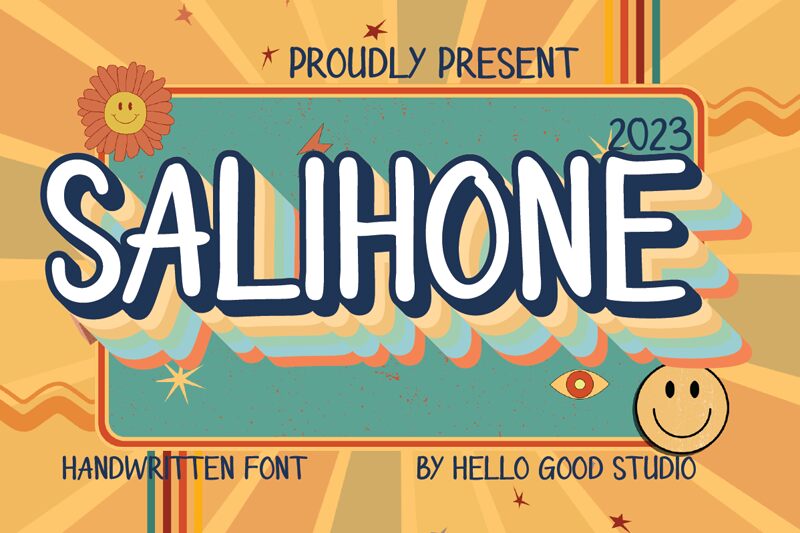
The original Salihone font was designed by Studio Hello Good and made available as a free download by the type foundry. This sans-serif handwritten brush script font with uppercase and lowercase letters is an exceptional resource that can be used for personal purposes.
This free script font is inspired by children’s drawings, and like all handwritten fonts it’s perfect for logotypes, headings, titles, logos, social media posts, cards, packaging, posters, and social media ads. Use Salihone in combination with other fonts like the Helpa font for eye-catching designs with an added level of excitement, fun, and creativity.
Use it for food related items or fun projects such as posters with colorful backgrounds, and don’t forget to check out Hello Good for a full collection of handwritten fonts.